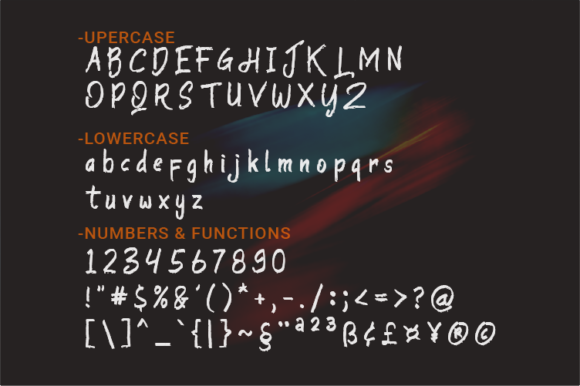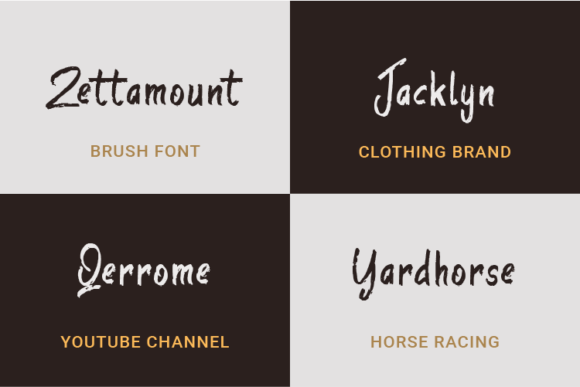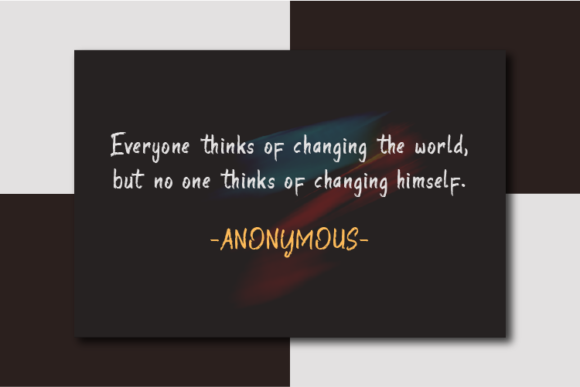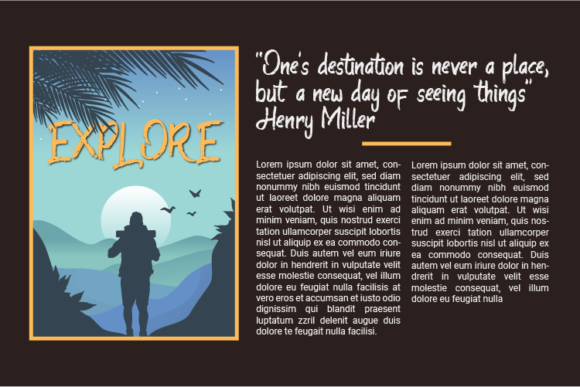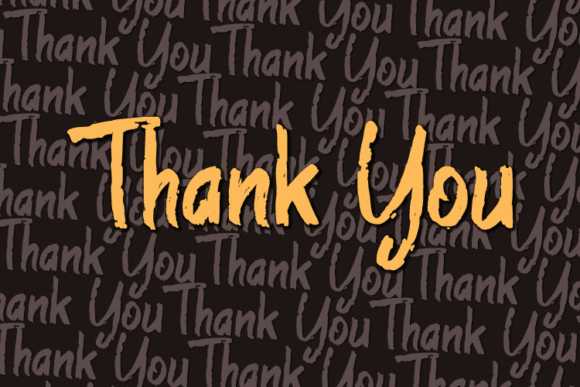
Zettamount Font
About Zettamount Font
Zettamount is a cool, brushed handwritten font, featuring the perfect amount of trendiness. Whether you’re using it for crafting, digital designing, presentations or greeting cards making, it’s perfect!